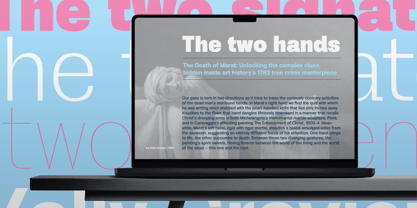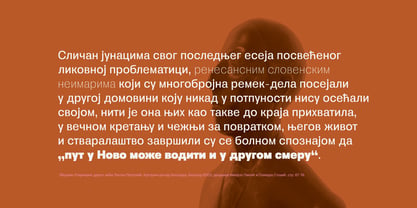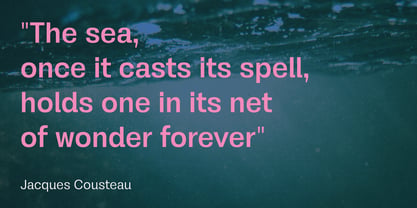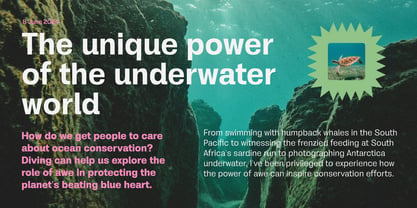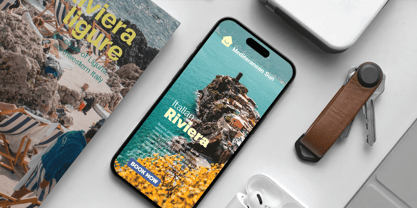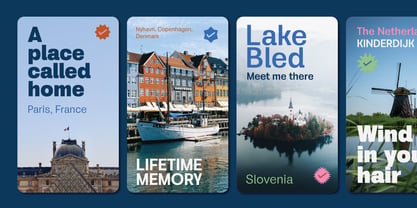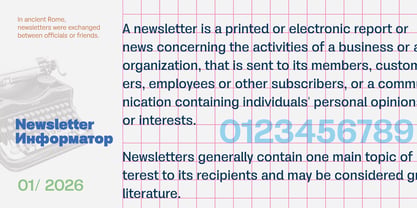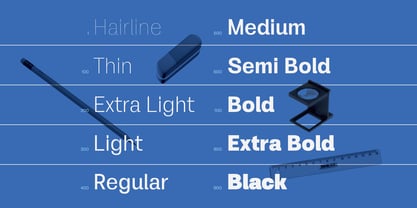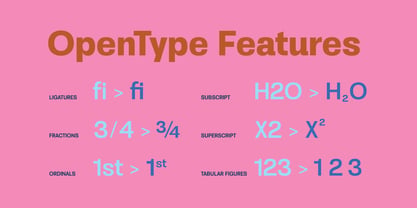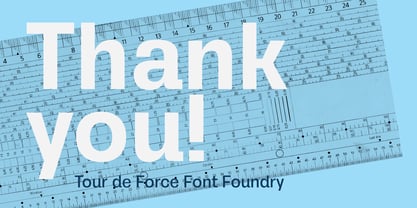
Oceanis
The Oceanis Font Family was designed by Dusan Jelesijevic and published by Tour De Force. Oceanis contains 10 styles and family package options. More about this family
Oceanis is neo-grotesque font family available in 10 weights. It’s been crafted following traditional manners of classics such as Helvetica and Arial, but with our own touch. It is imagined as a working horse font family – to fit into every project. By characteristic of belonging font category, Oceanis is neutral, compact, low contrasted typeface. It is pure sans serif family with wide range of weights – from very light Hairline to dark Black. Oceanis comes with Standard Ligatures, Fractions, Ordinals, Tabular Figures, Superscript and Subscript as OpenType features. Beside Extended Latin language coverage, Oceanis support Cyrillic languages as well.